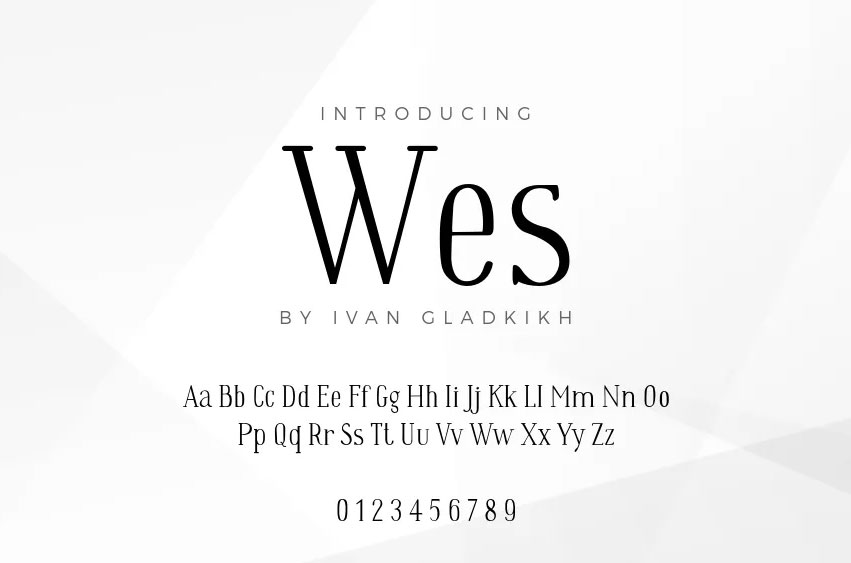
Wes Font
Wes Font created by Ivan Gladkikh, is a stunning and refined serif typeface. Drawing inspiration from the introspective and nuanced cinematic style of acclaimed director Wes Anderson, Wes Font embodies these same qualities in its character and conceptual design.
The elegance of this font is sure to enhance any project and captivate its audience.